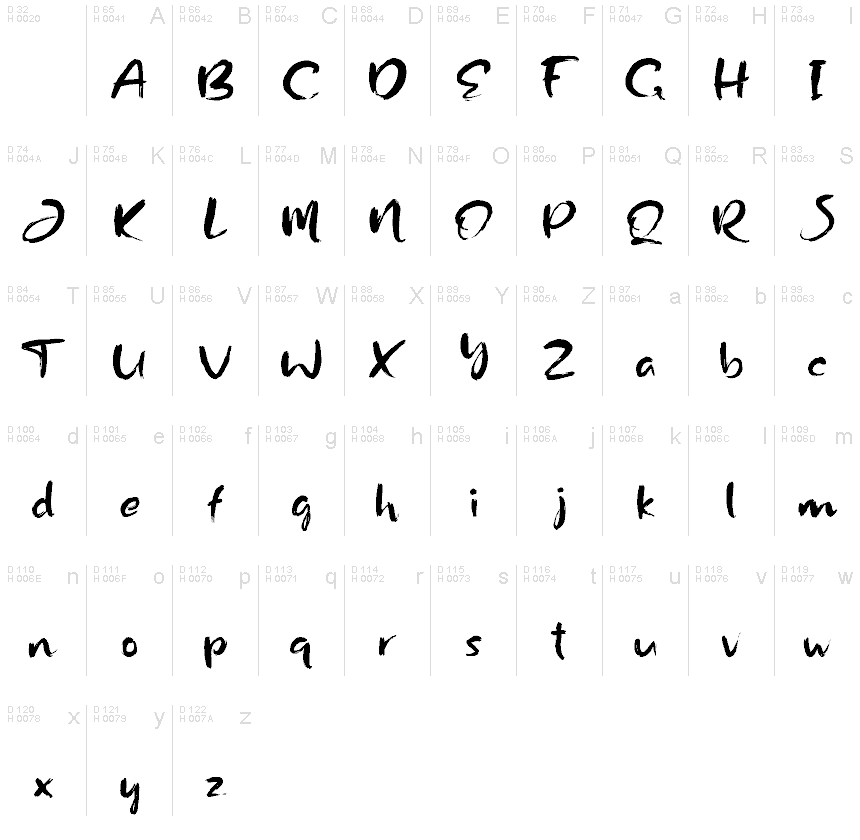
Rainly Regular
Rainly font by Craft Supply Co. combines a casual handwritten style with an artistic flair that makes it stand out in every design project. The expressive strokes deliver a unique structure, balanced beautifully for banners and logotypes. This free brush font creates the right energetic mood for both printed and digital projects thanks to its modern appeal.
Promoting activities and products meant for museum goers, theater shows, or new books is much more fun with titles in this font. Rainly’s versatile look also works well for food packaging (boxes, bags) as well as cinema posters, fashion labels, photography watermarks, home décor items selection etc.